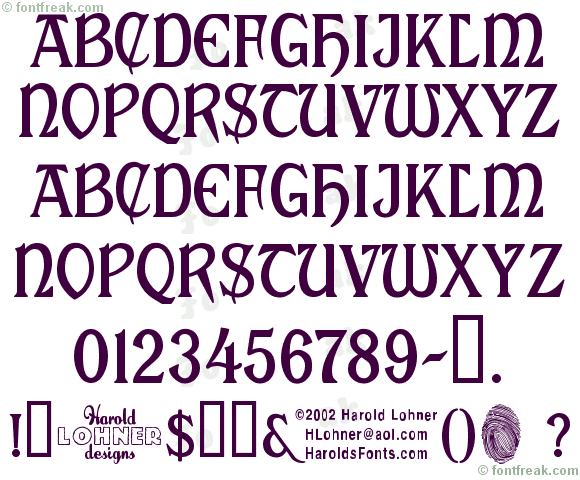
Cabaletta
About Cabaletta
Cabaletta is a striking display font designed by Harold Lohner, characterized by its unique blend of elegance and boldness. As a serif typeface, it features pronounced strokes with a sturdy weight that commands attention while maintaining a refined aesthetic. The font exhibits a moderate contrast between thick and thin strokes, enhancing its legibility and visual appeal. Its carefully spaced letters contribute to a balanced look, making it suitable for various creative applications.
This font shines in contexts where a touch of sophistication is desired. It is particularly effective for wedding invitations, where its classic style can evoke a sense of charm and romance. Additionally, Cabaletta works well for movie posters, providing a dramatic flair that captivates audiences. Restaurant menus can benefit from its distinctive character, enticing patrons with a visually appealing presentation of culinary offerings. Content creators will also find Cabaletta to be an excellent choice for branding materials, as it conveys professionalism while still being approachable.
Targeted towards graphic designers, small business owners, and content creators, Cabaletta is a versatile typeface that enhances any project it graces. Its unique visual characteristics allow it to stand out in a crowded digital landscape, making it a favorite among those looking to make a memorable impression.